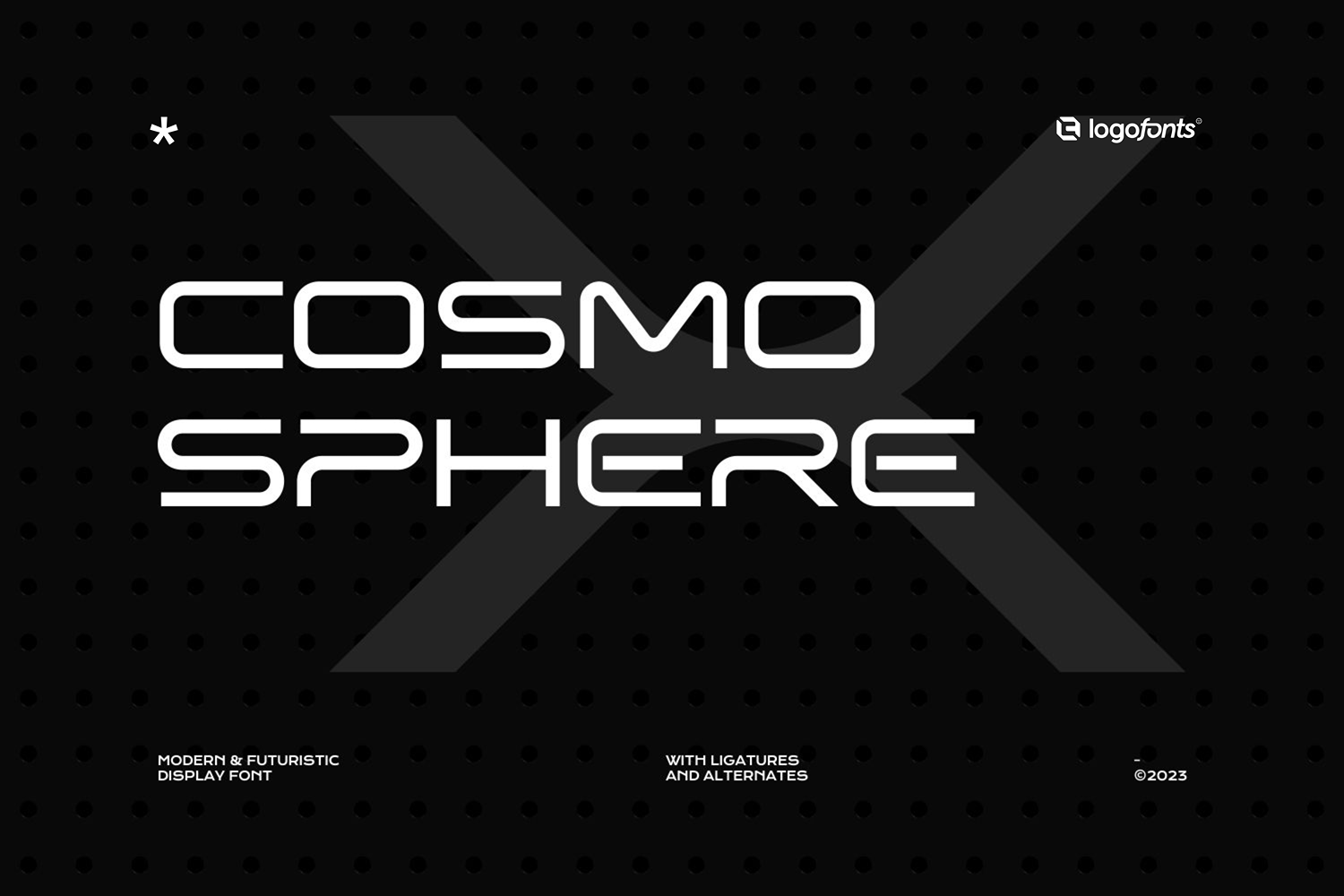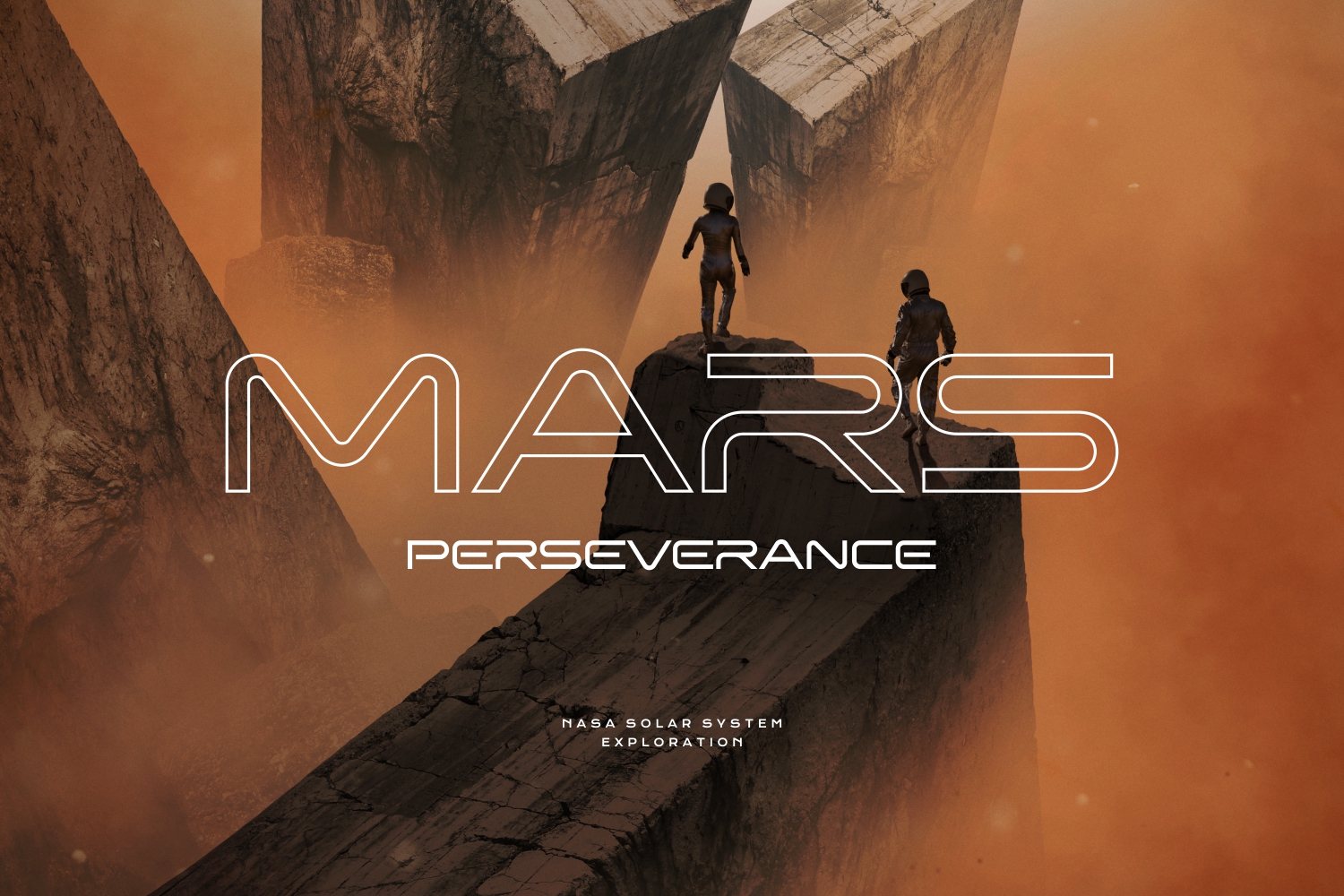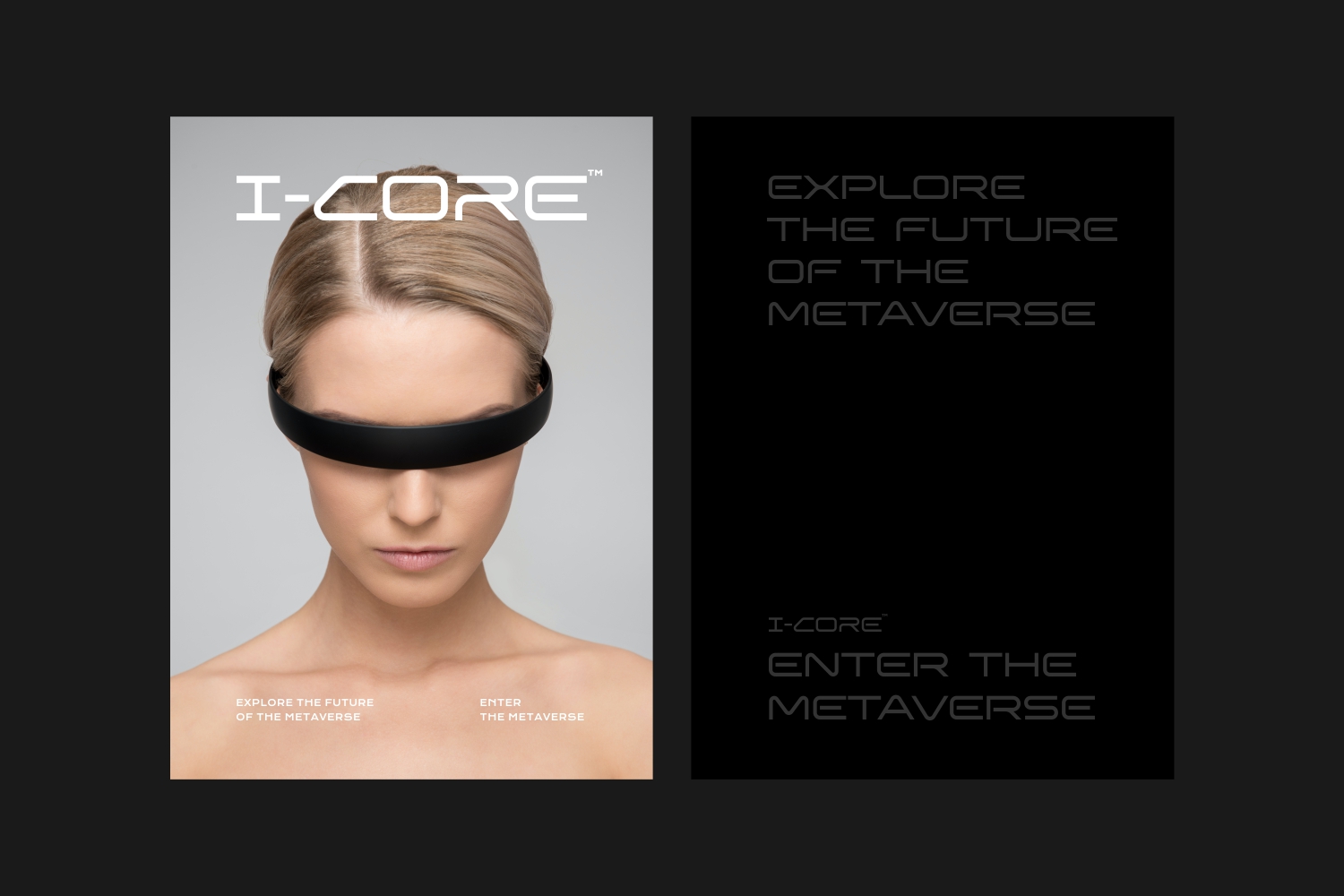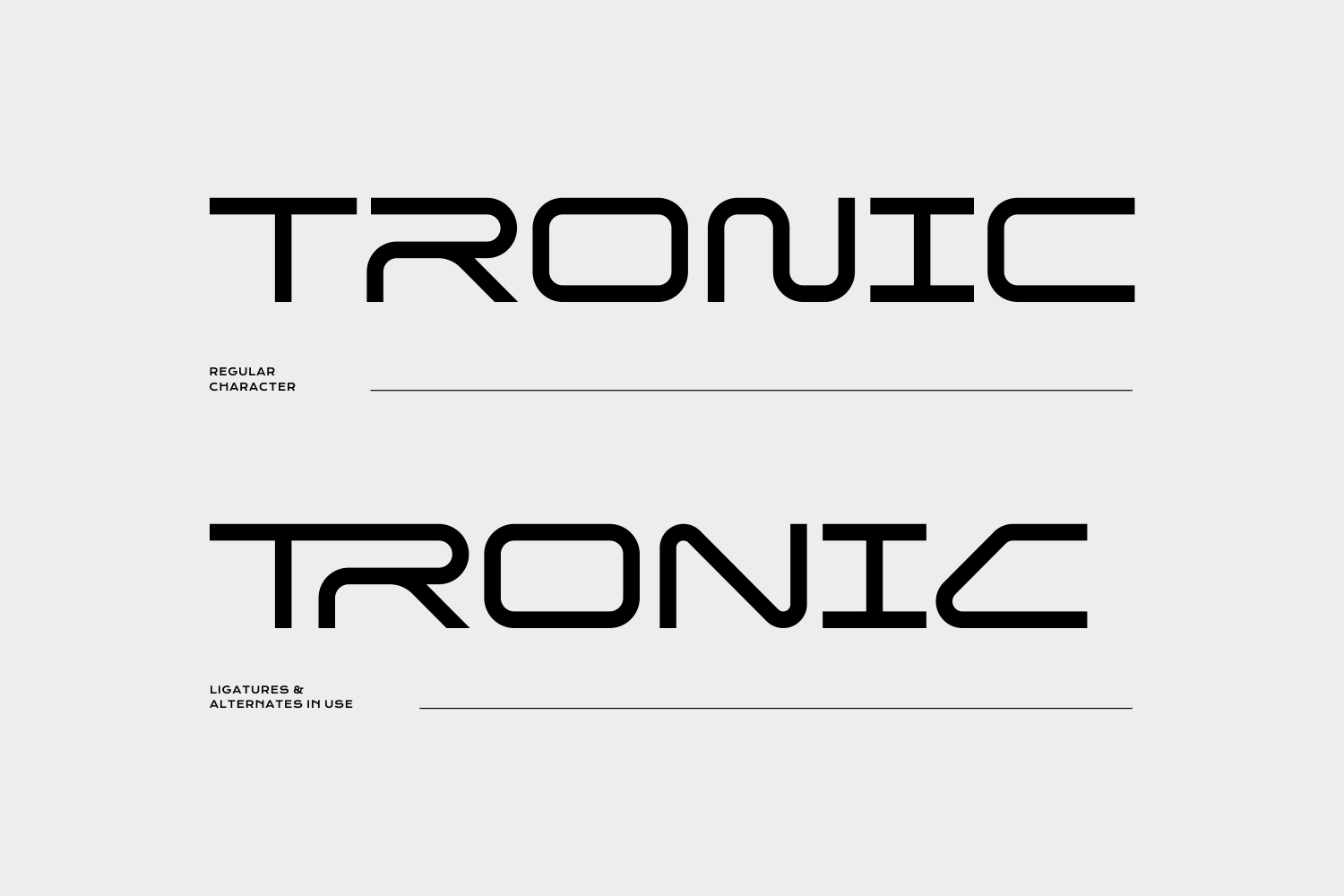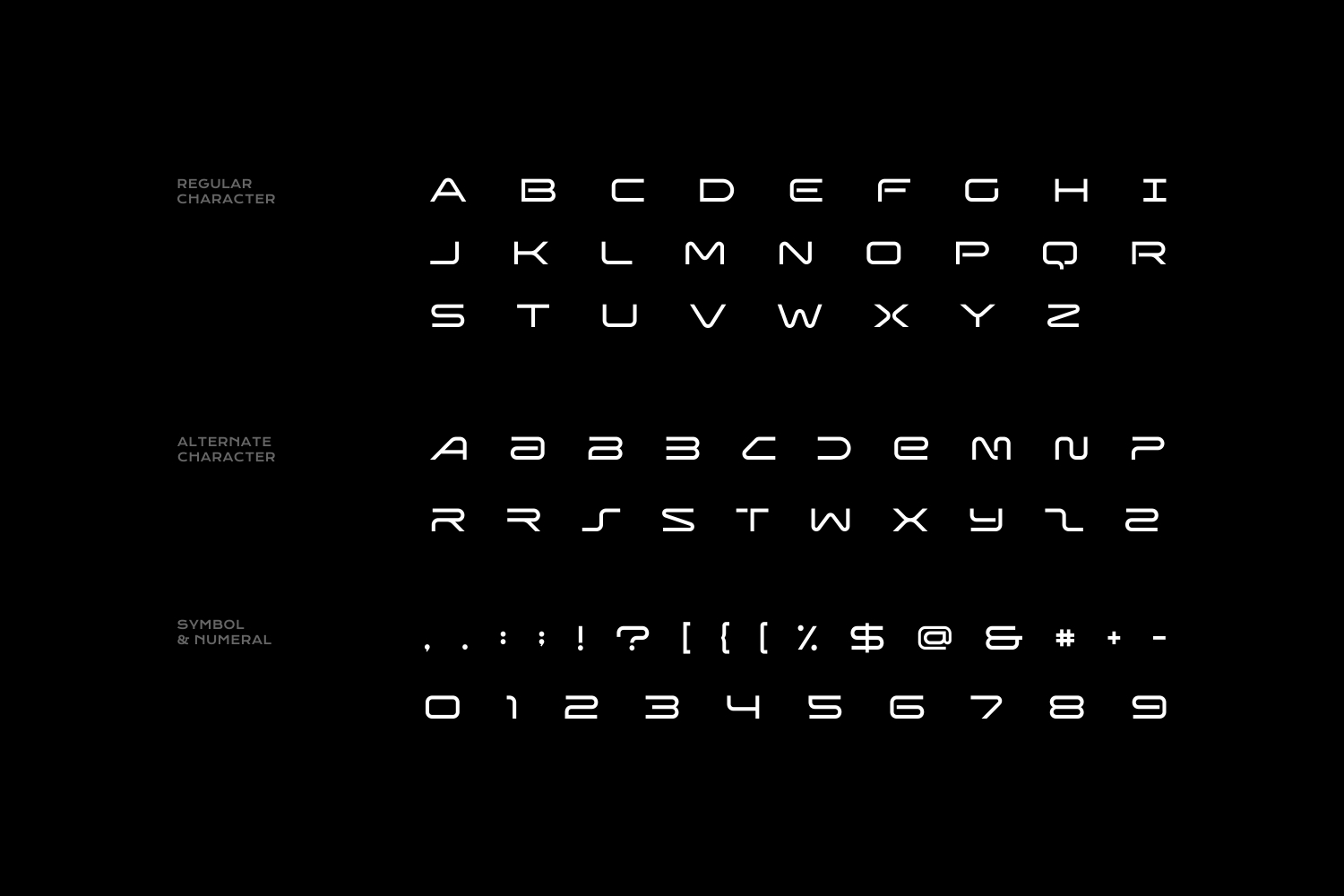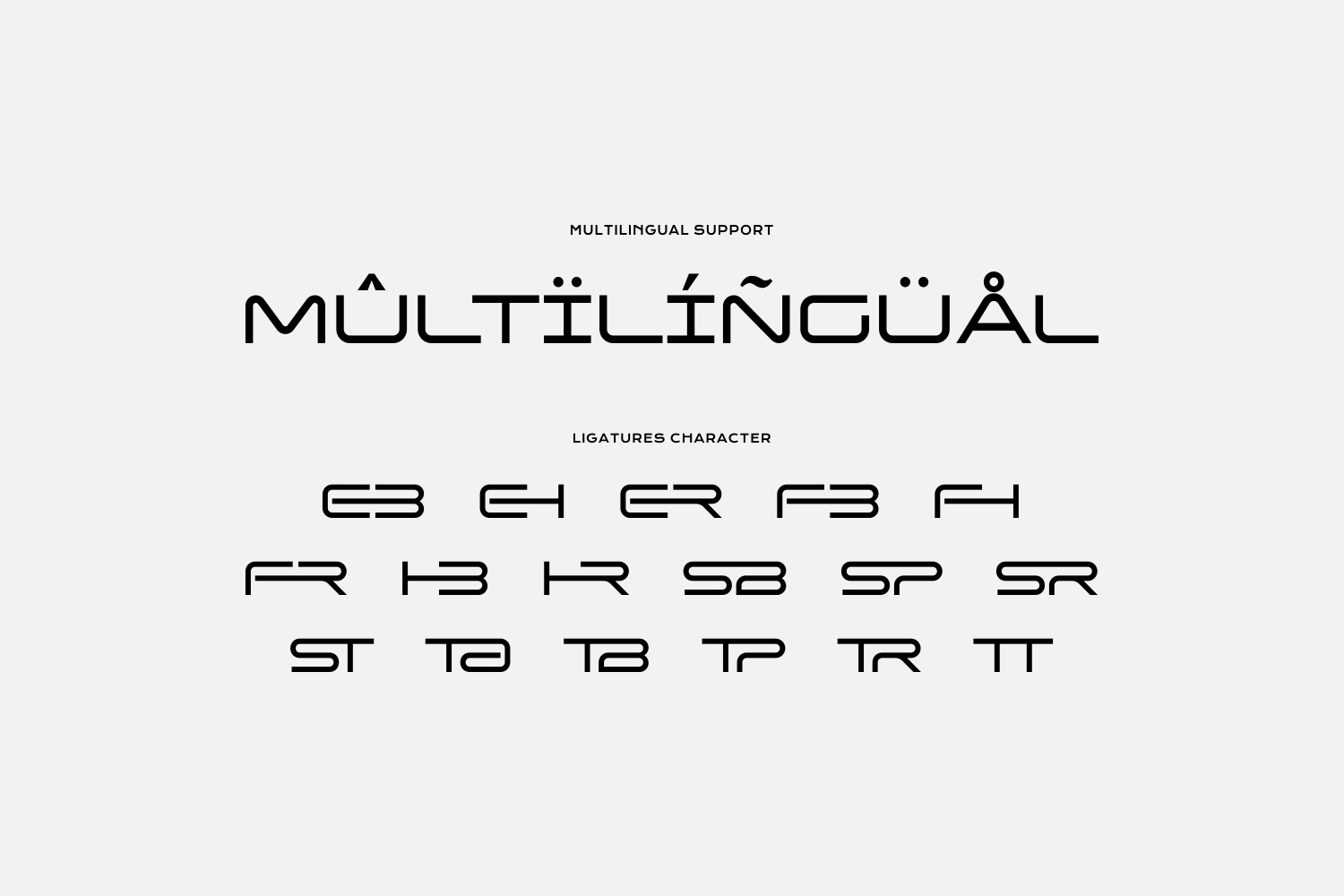
Cosmo Sphere is a modern and futuristic display font inspired by the aesthetics of space exploration, advanced technology, and digital innovation. With its sleek, rounded letterforms and high-tech ligatures, this font brings a cutting-edge look to any project. Whether you’re designing a sci-fi interface, a tech startup identity, or a metaverse-themed campaign, Cosmo Sphere gives your typography a forward-thinking personality with unique alternates and multilingual support.
Perfect for headlines, posters, product packaging, and branding, Cosmo Sphere stands out with its minimalist geometry and cosmic flair. It features a full set of uppercase letters, alternates, symbols, and stylized ligatures to help you build a visually cohesive and futuristic type system that feels both clean and imaginative.
Cosmo Sphere